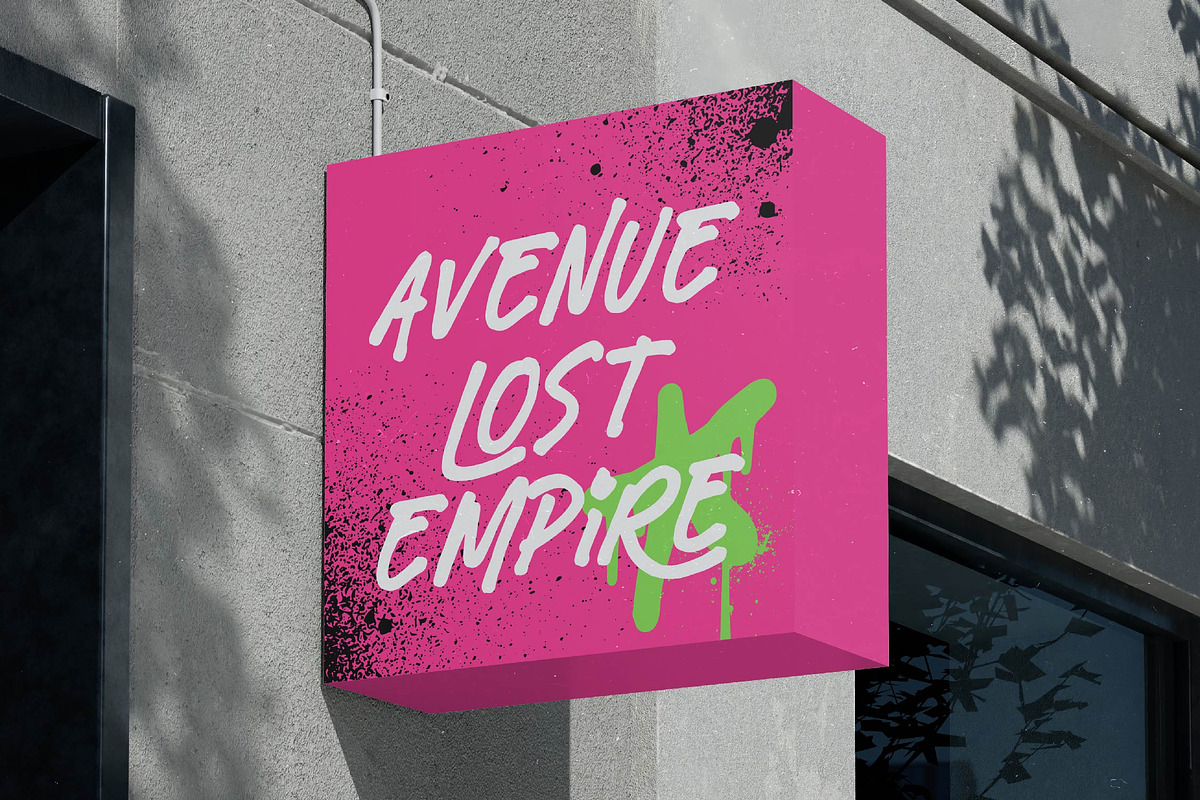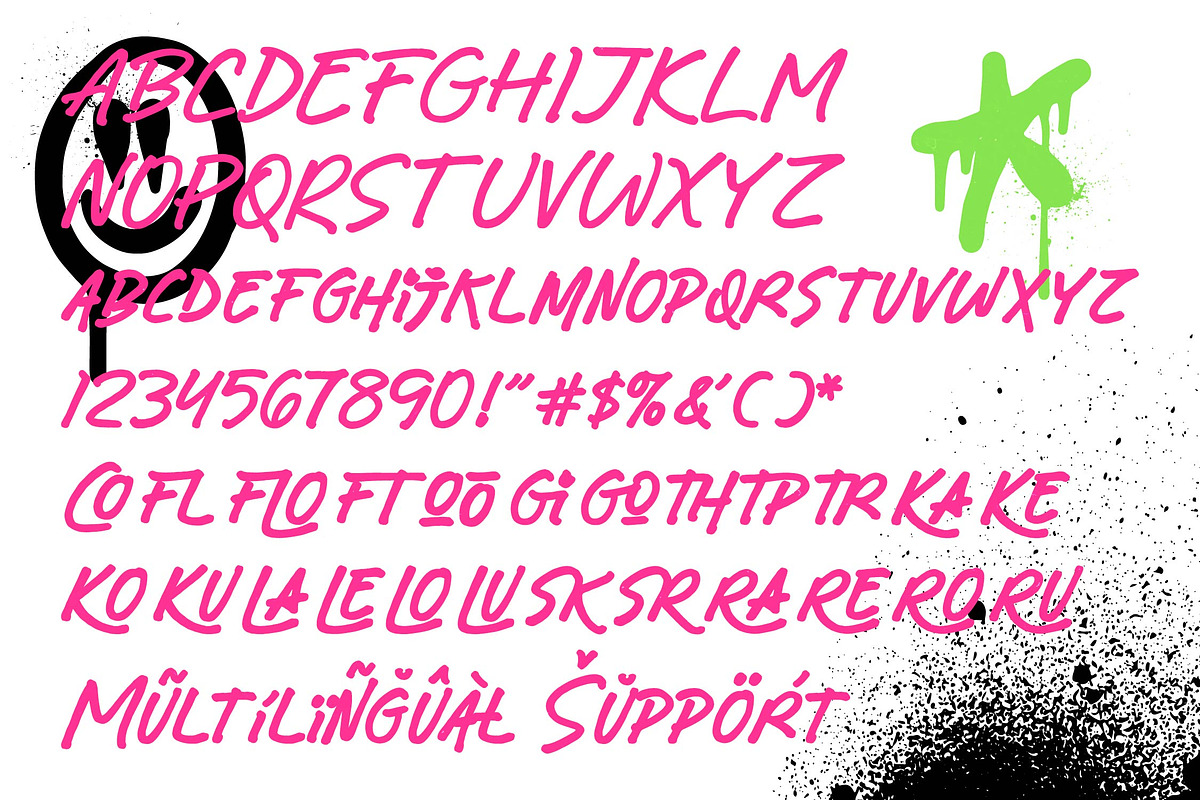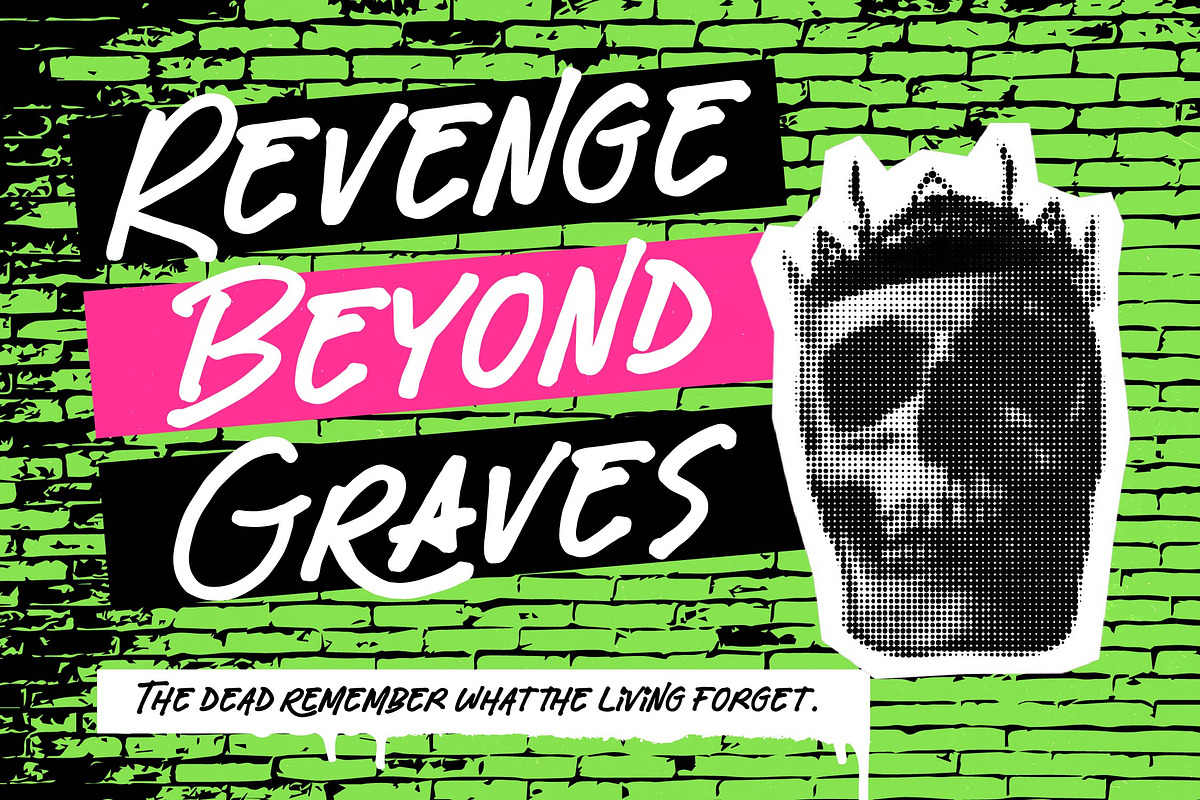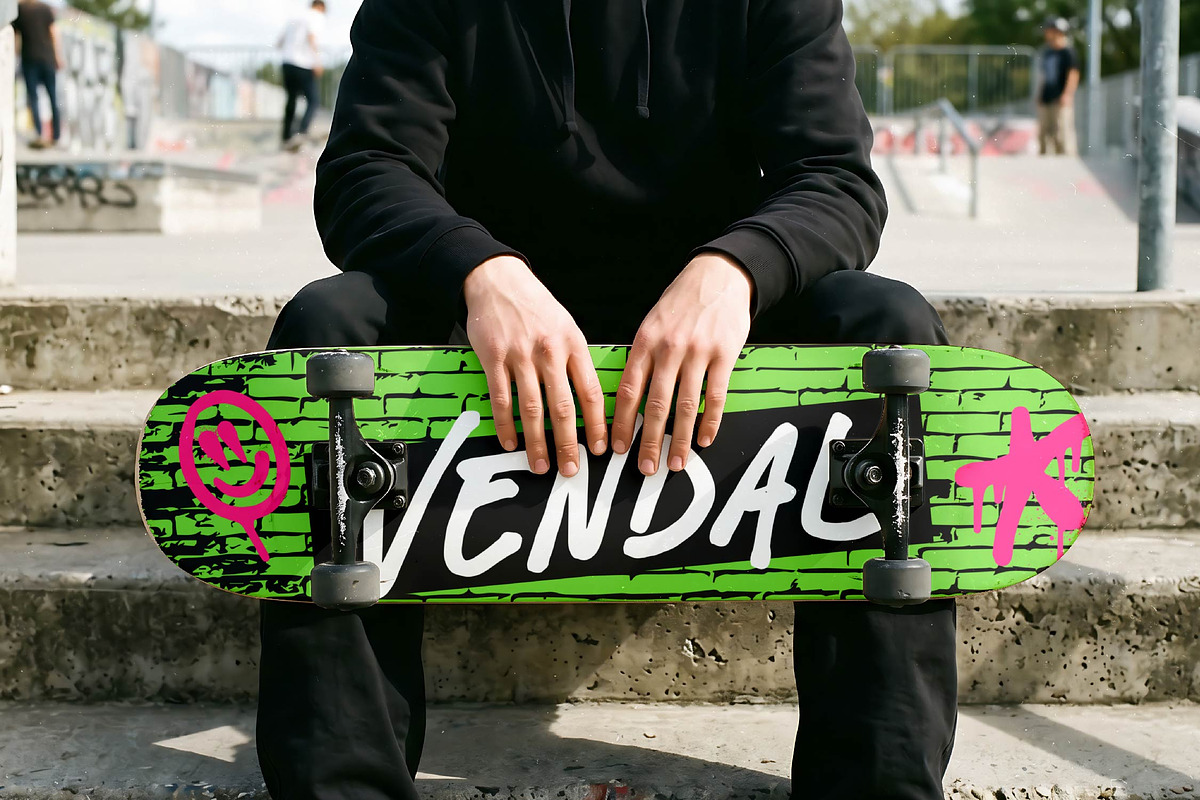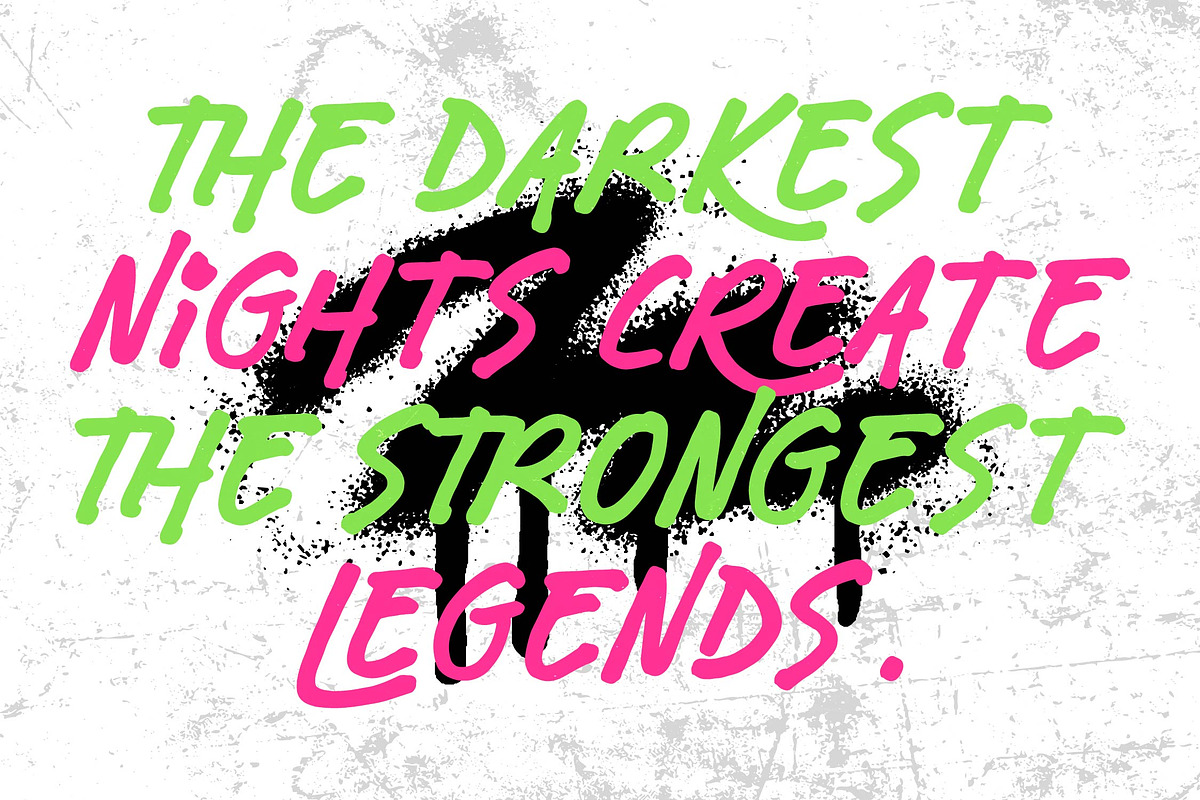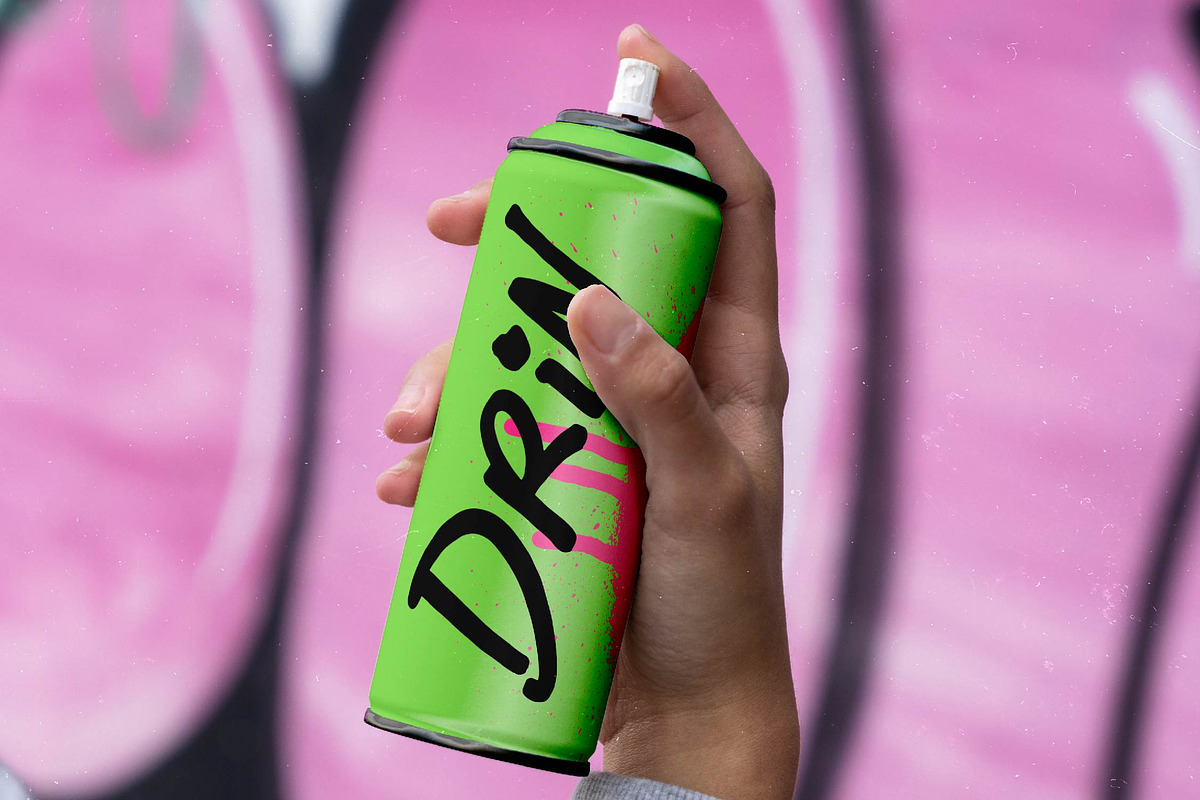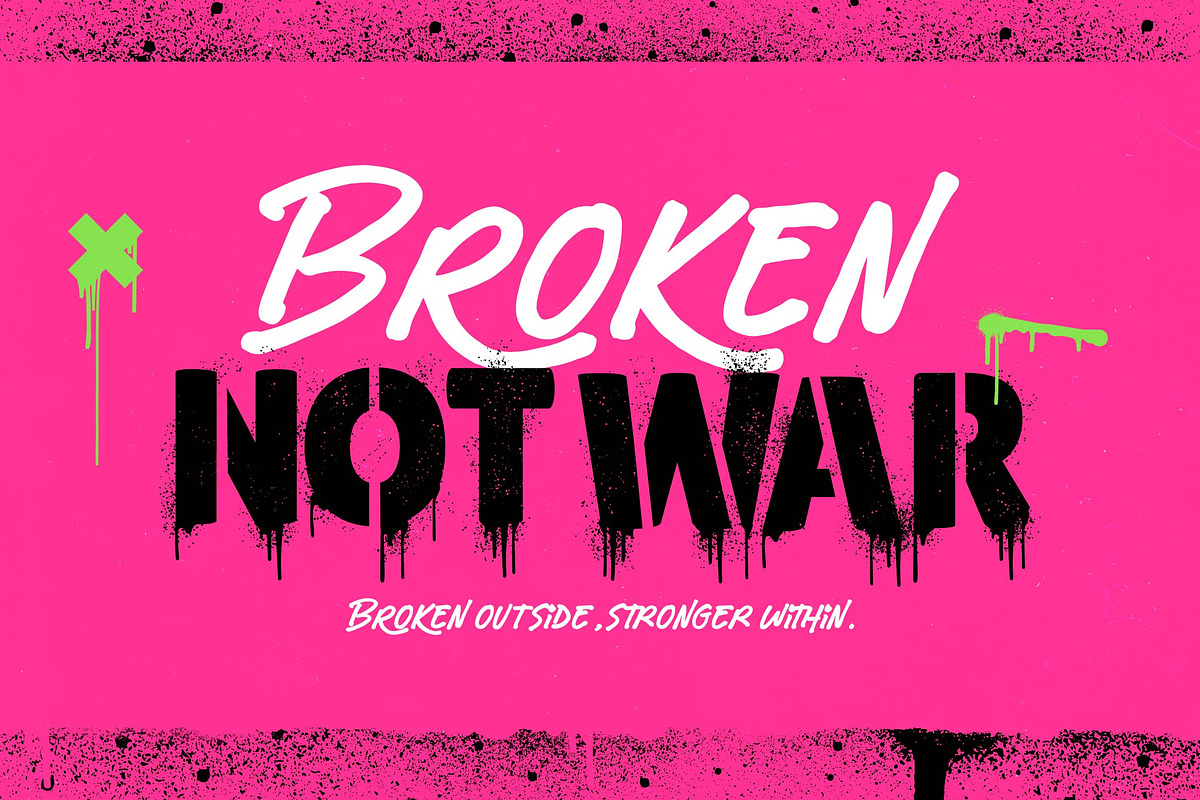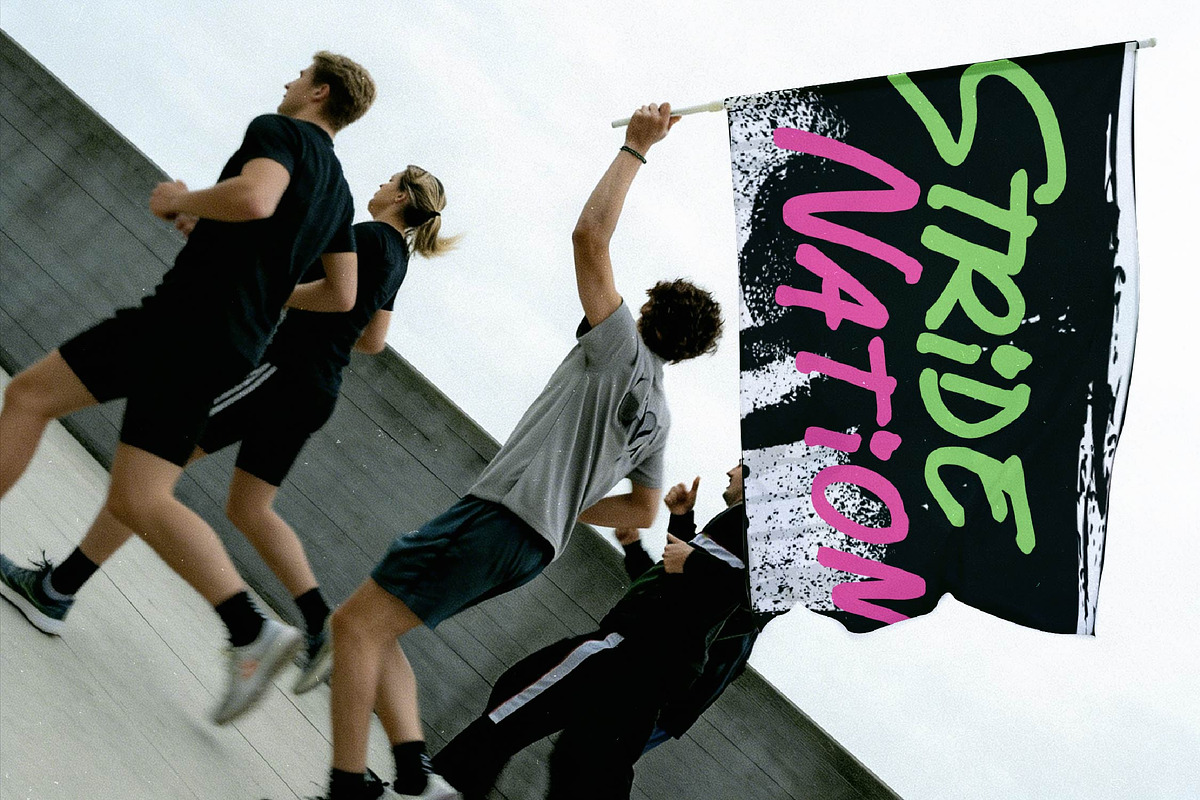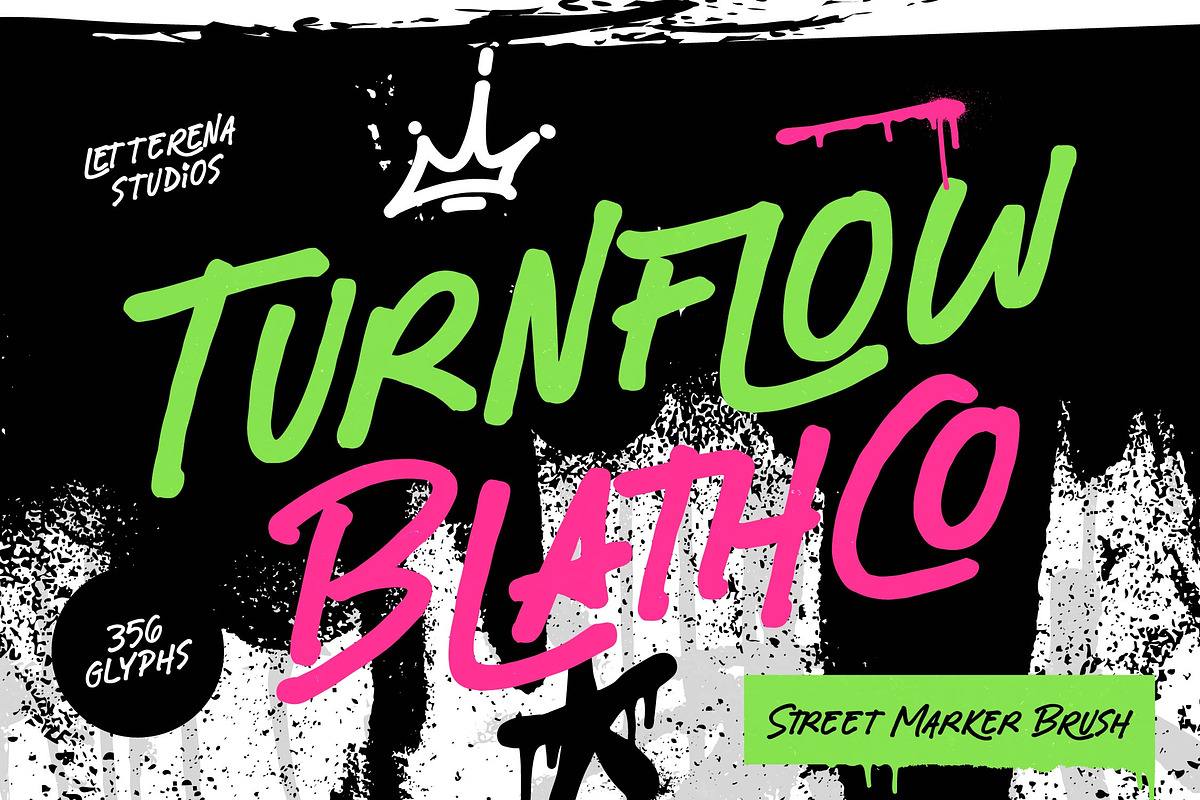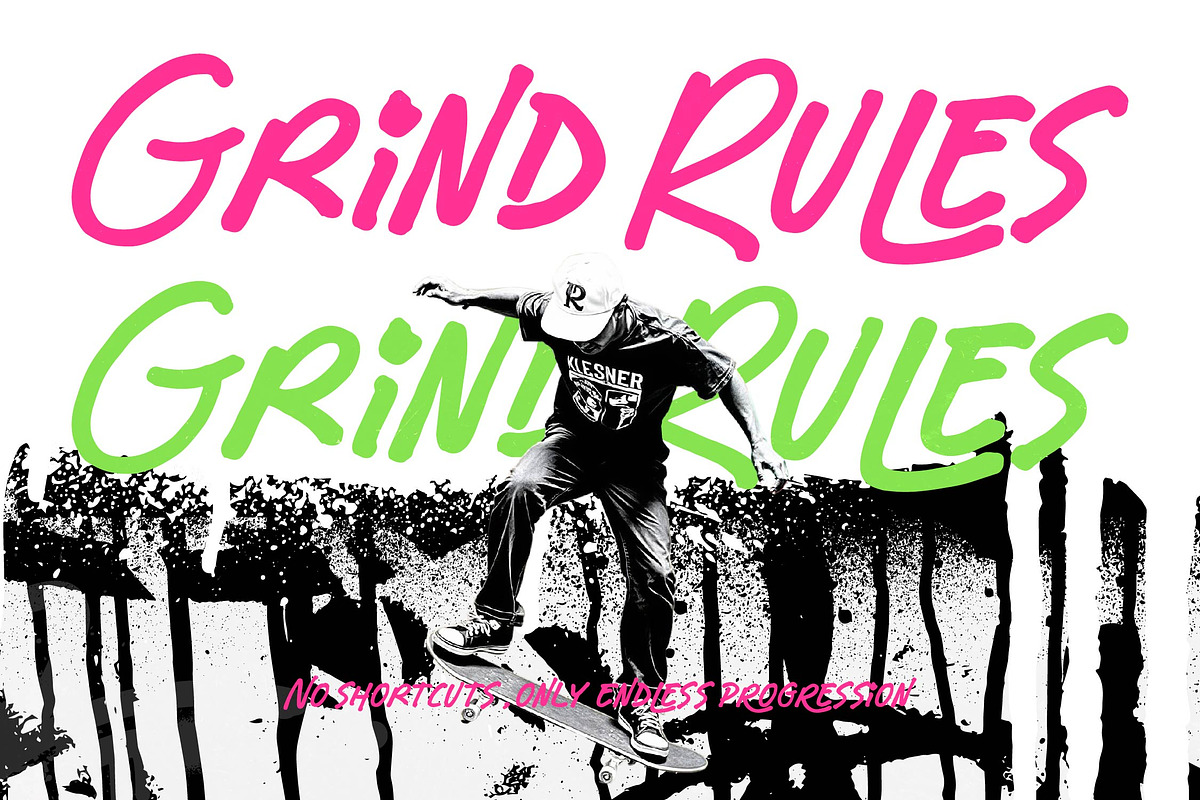
Turnflow Blathco Street Marker Brush
Turnflow Blathco - Street Marker Brush , Unleash the raw energy of urban aesthetics with Turnflow Blathco - Street Marker Brush, a powerhouse typeface designed to command attention. This street-style brush font captures the authentic essence of hand-drawn marker strokes, offering a bold and expressive aesthetic that resonates with contemporary culture. Its fluid lines and organic textures provide an unapologetic visual impact, making it an essential asset for designers looking to inject a sense of rebellion and grit into their digital canvas.
Engineered for professional performance, Turnflow Blathco - Street Marker Brush features an impressive library of 356 glyphs that ensure every word feels unique. The meticulous craftsmanship behind each letterform maintains a perfect balance between controlled chaos and legibility. By integrating hand-drawn authenticity with modern digital standards, this font allows for seamless creative execution in both print and screen environments, providing the artistic edge required for high-tier production work.
Expand your reach effortlessly with a typeface built for the modern, interconnected world. With its extensive multilingual support, Turnflow Blathco - Street Marker Brush adapts seamlessly across global markets, making it incredibly versatile for international projects. Whether your message is destined for local streets or a global audience, this font ensures your brand identity remains consistent and powerful regardless of geographic borders or linguistic requirements.
Transform your vision into reality by utilizing Turnflow Blathco - Street Marker Brush for its ideal applications in streetwear branding, bold packaging design, and dynamic editorial layouts. It is perfect for creating high-impact visuals in music promotions, social media campaigns, and urban lifestyle projects. From lifestyle labels to aggressive marketing posters, this font delivers a premium aesthetic that guarantees your brand stands out in a crowded marketplace.